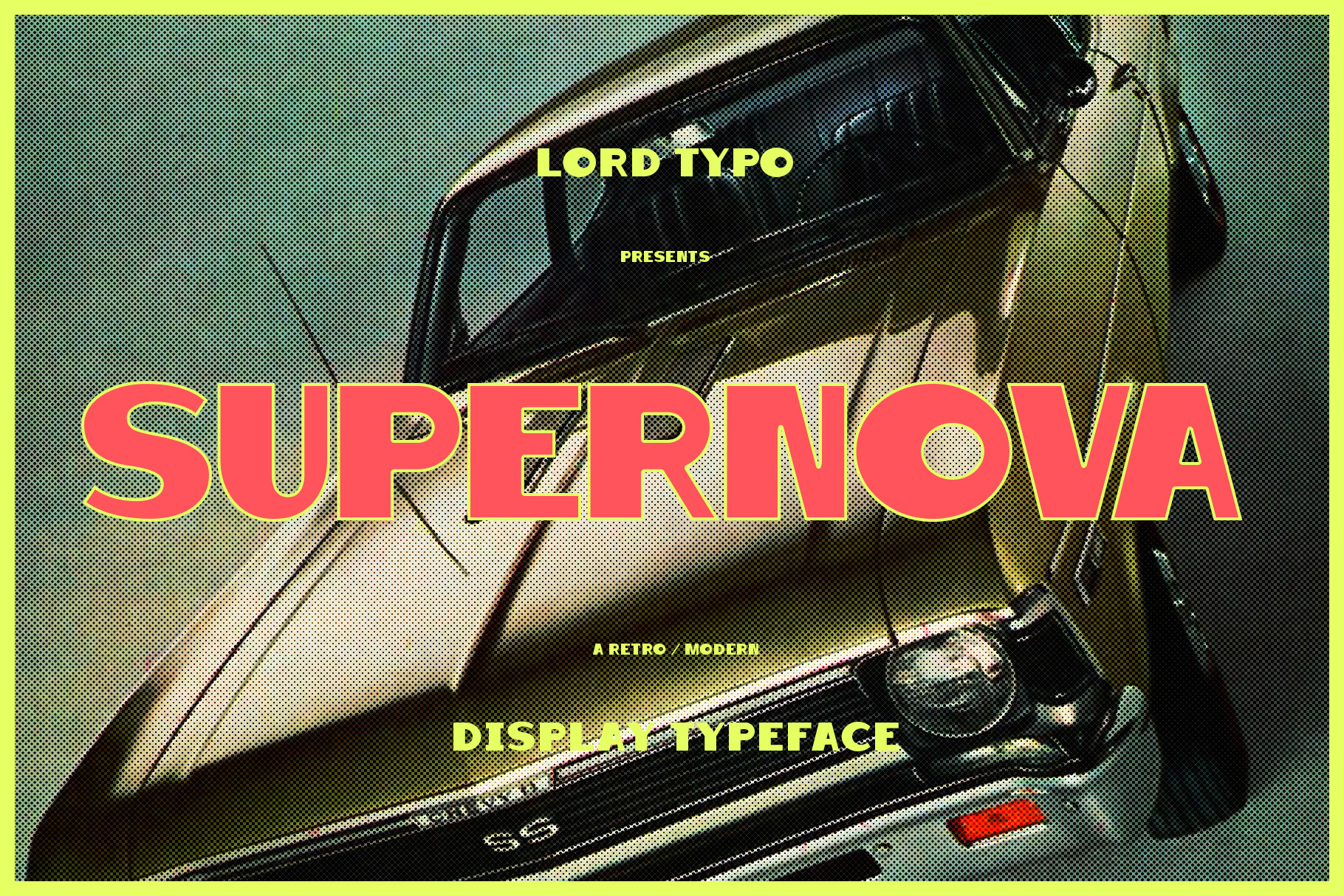
SUPERNOVA — Retro Display Font
SUPERNOVA is a throwback display font paying homage to the classic automotive typography of the 50's and 60's. SUPERNOVA is super (pun intended) versatile and can be used for anything from logo design, beer labels, shirt graphics, playful editorial spreads and much much more.